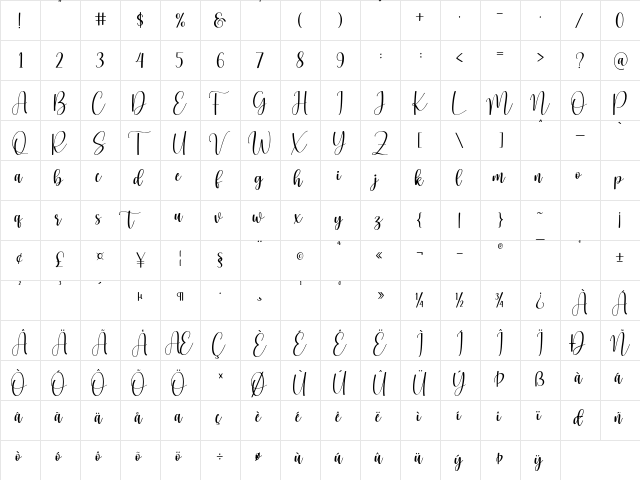
Suneater Regular
Design Context for Suneater Typeface
Suneater is a composed and adaptable typeface that performs quietly and consistently across a wide range of design contexts.